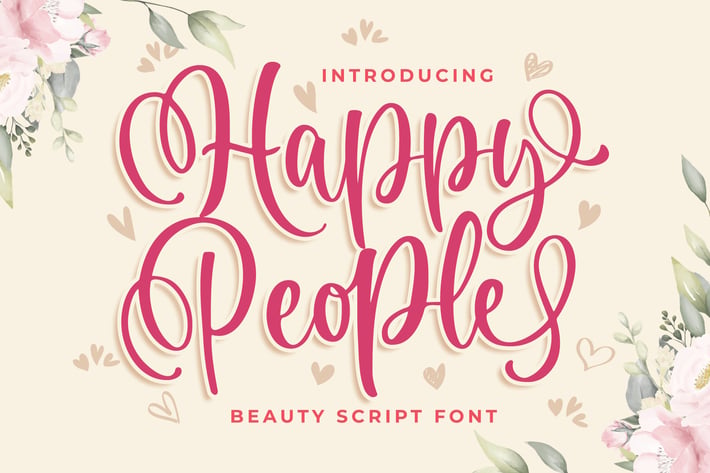
Happy People Beauty Script Font
Introducing of our new product the name is Happy People Beauty Script Font. Happy People inspired by modern calligraphy style this font is a fun theme very good for display, tshirt design, craft, quote sign, logotype and etc